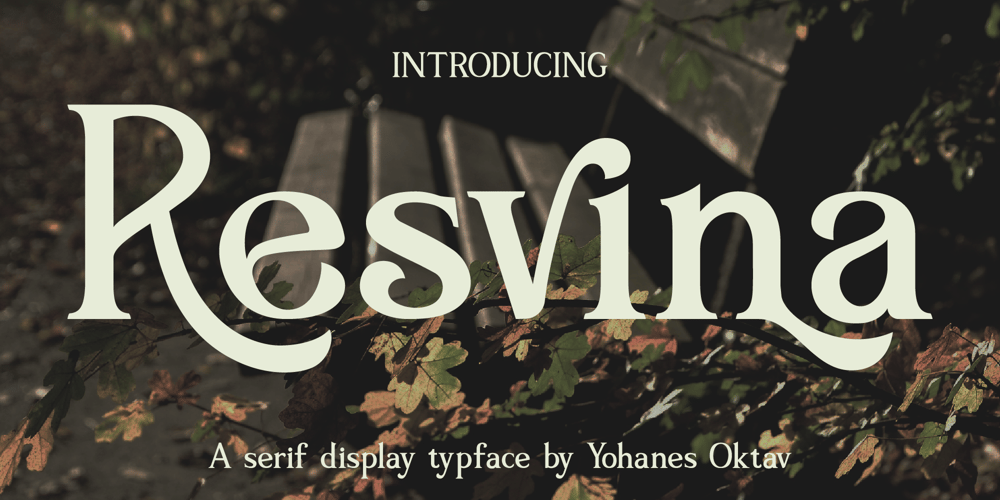
Resvina Font Family was designed by Yohanes Oktavianus Aang and published by Yohanes Oktav. Resvina contains 1 styles and family package options. Resvina is a Serif Display Typeface that seamlessly blends classic elegance with a modern touch. With its sophisticated serifs and high contrast, it commands attention for headlines and titles. What sets Resvina apart is its extensive alternates and ligature options, providing designers with creative freedom and versatility. Ideal for projects that demand refined typography, Resvina adds a timeless charm to any design